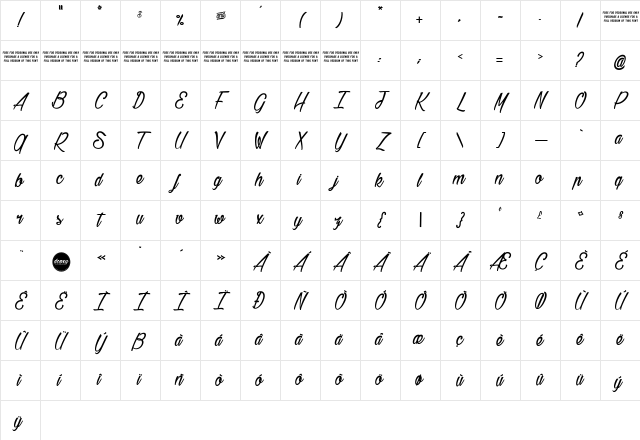
Gillie&Hilda Regular Free Font
Gillie&Hilda Regular
Foundry: dcoxy Medina Gregory
Designer: dcoxy Medina Gregory
Design Context for Gillie&Hilda
Gillie&Hilda is a composed and adaptable typeface that performs quietly and consistently across a wide range of design contexts.
Who designed the Gillie&Hilda Regular font?